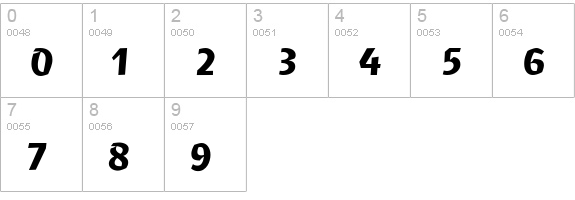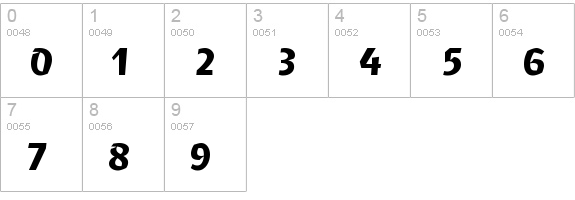
CgRitmoBold Font Details
CgRitmoBold is a stunning and bold display font that commands attention with its unique and modern design. Its strong and dynamic letterforms make it perfect for headlines, posters, and branding projects that require a touch of sophistication and flair. The font exudes confidence and style, making it a versatile choice for a wide range of design applications. What sets CgRitmoBold apart is its versatility and ability to stand out in any design context. Whether used for print or digital projects, this font delivers a powerful visual impact that is sure to capture the audience's attention. Its bold and striking appearance makes it ideal for making a statement and leaving a lasting impression. And the best part? CgRitmoBold is available for free download at FontsMarket.com, making it accessible to designers and creatives looking to add a touch of elegance and boldness to their projects without breaking the bank. Don't miss out on this opportunity to elevate your designs with this exceptional font that combines style, versatility, and affordability in one package. Download CgRitmoBold today and see the difference it can make in your next project!